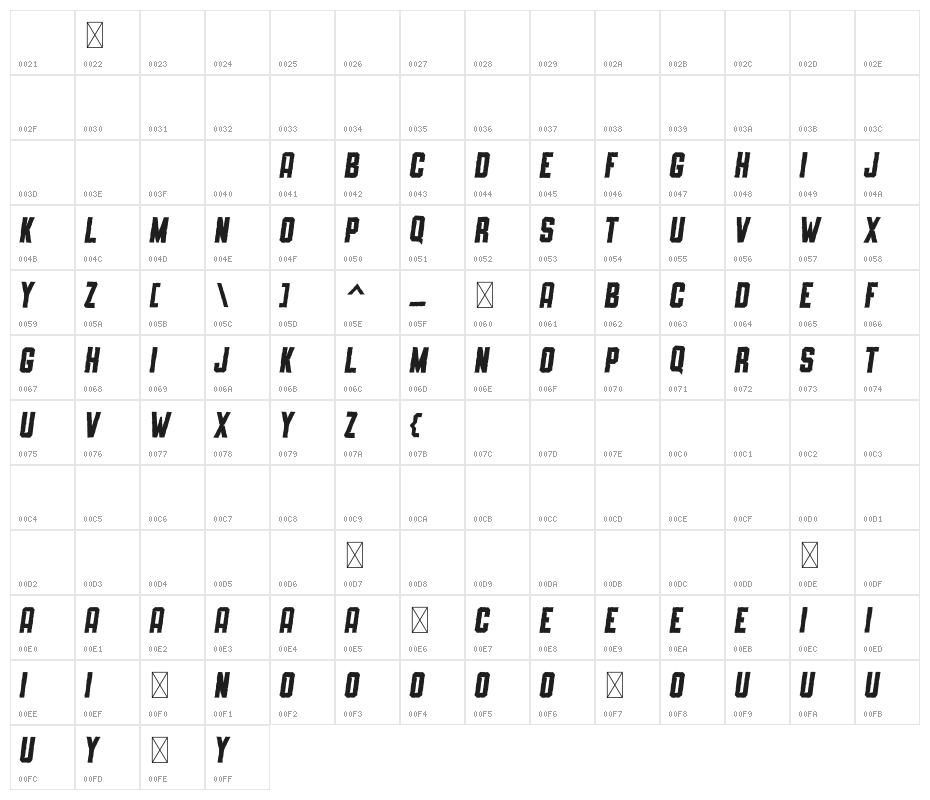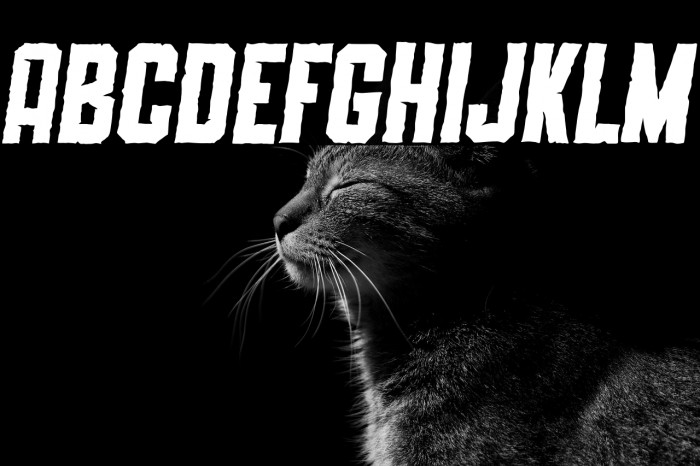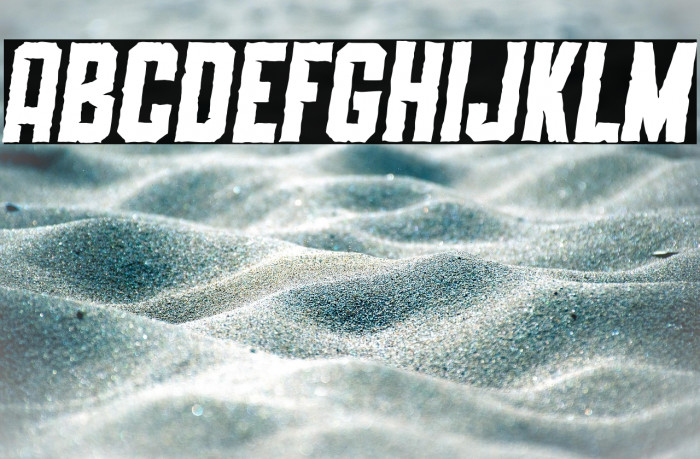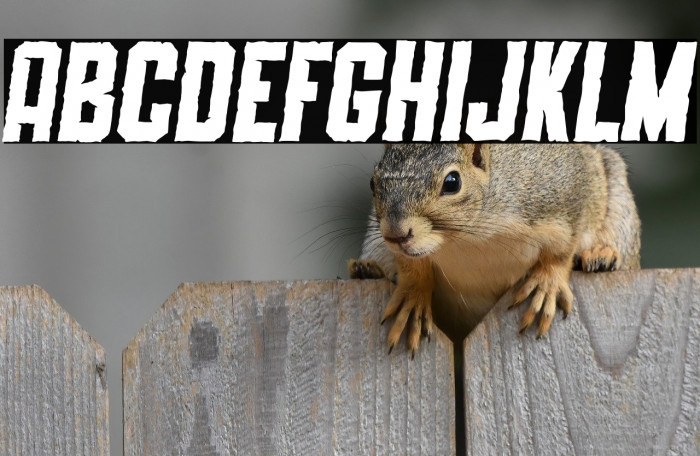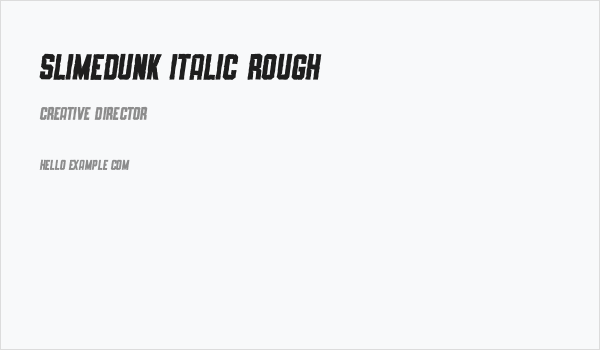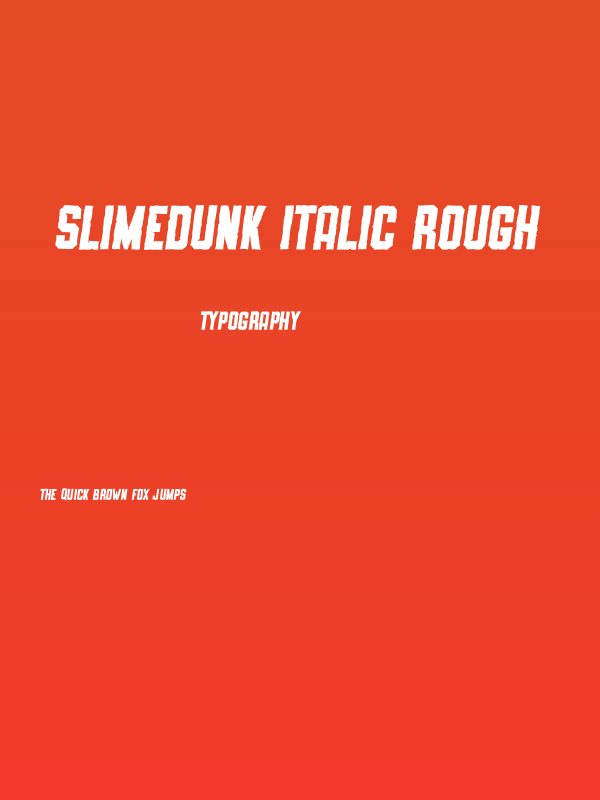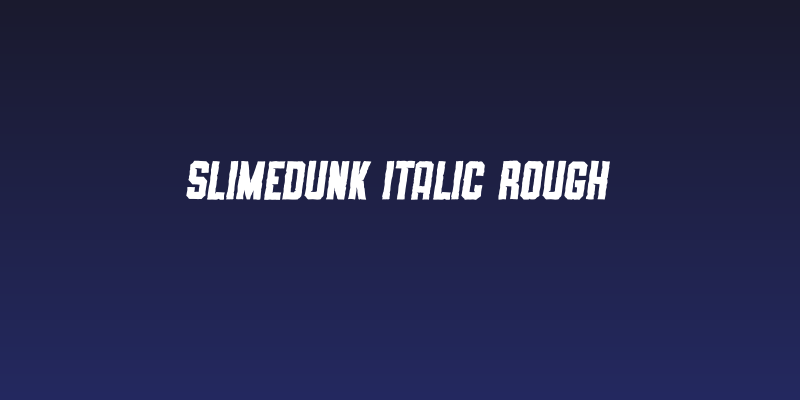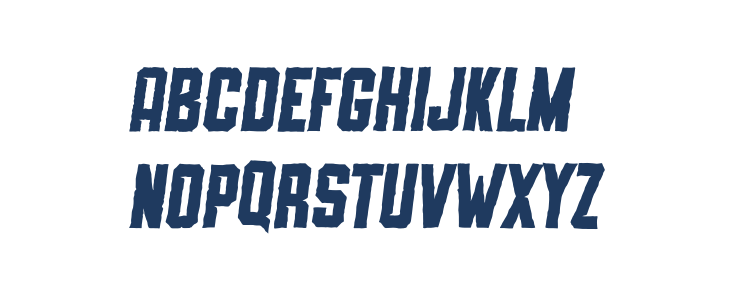
SLIMEDUNK ITALIC ROUGH Font
SLIMEDUNK ITALIC ROUGH Description
This font features a bold and dynamic style with a rough, textured appearance. The italicized letters convey a sense of movement and energy, making it ideal for projects that require a strong visual impact. The uppercase letters are prominently displayed, with sharp edges and a slightly condensed form that enhances its boldness. The rough texture adds a gritty, urban feel, perfect for designs that aim to capture attention and convey a sense of edginess. The font's unique style makes it suitable for various creative applications, from sports-themed graphics to bold branding projects.
Overall StyleModern, Edgy
Proposed ProjectsIdeal for sports branding, dynamic posters, edgy logos, and urban-themed designs.